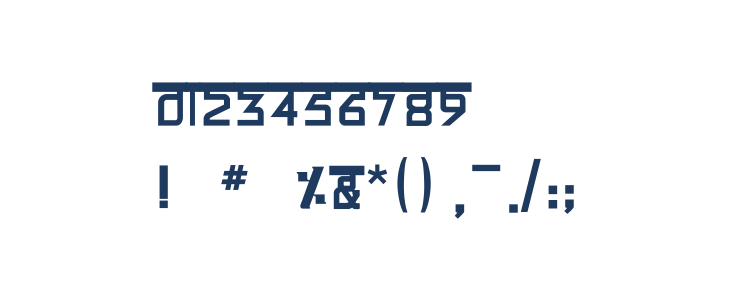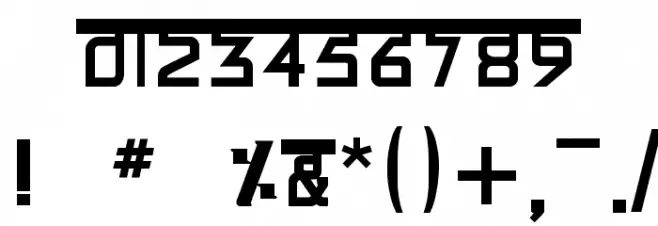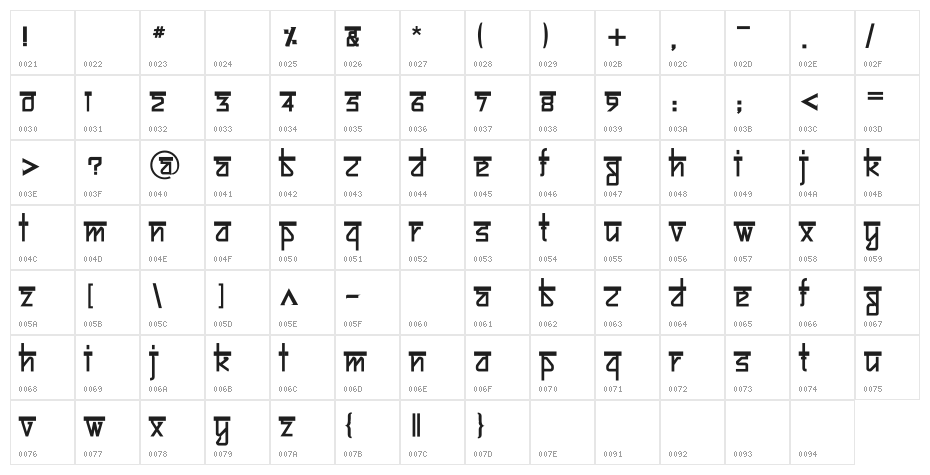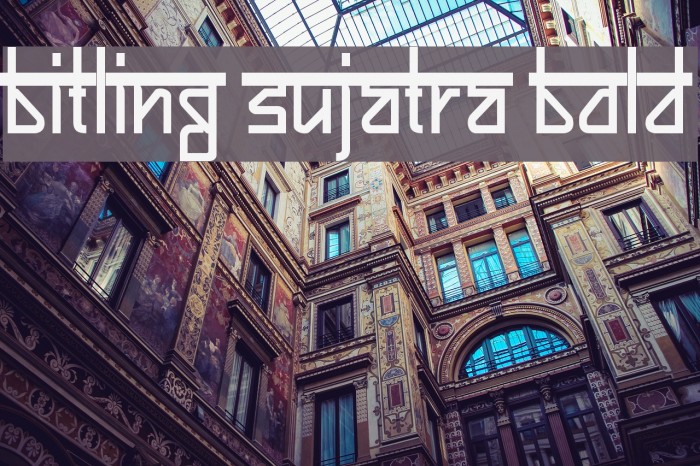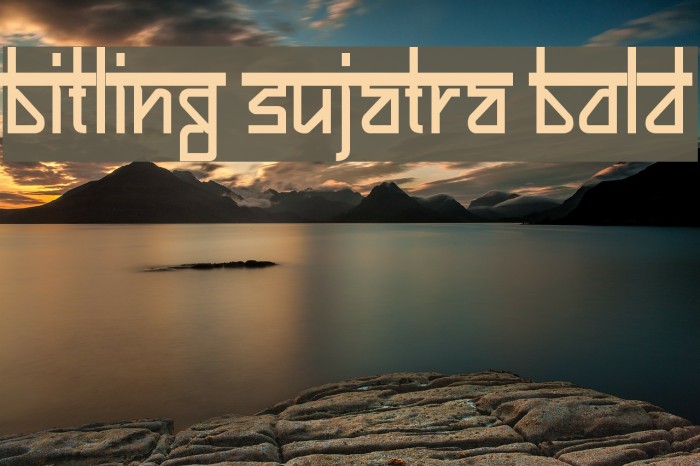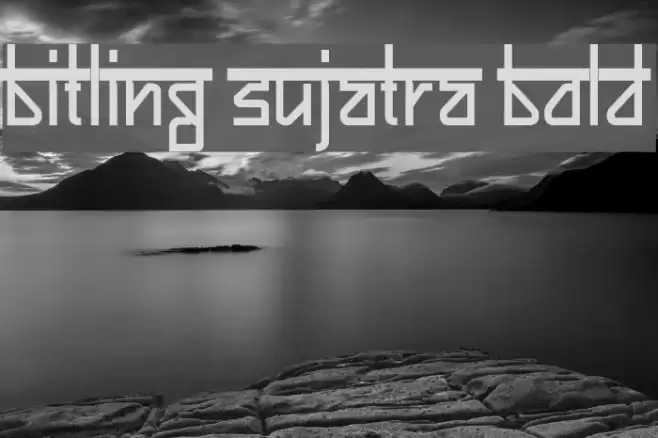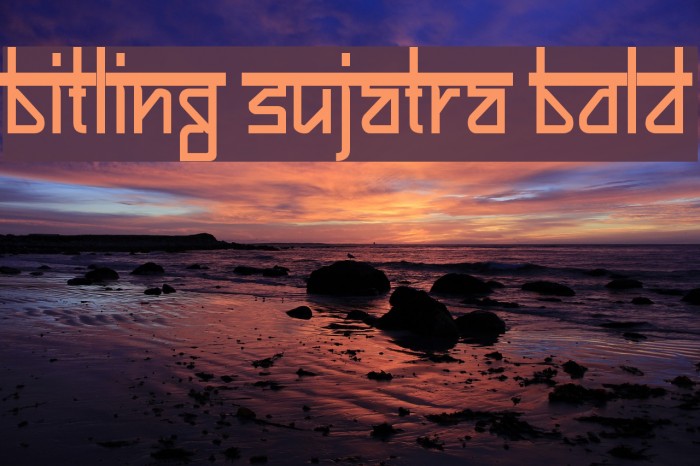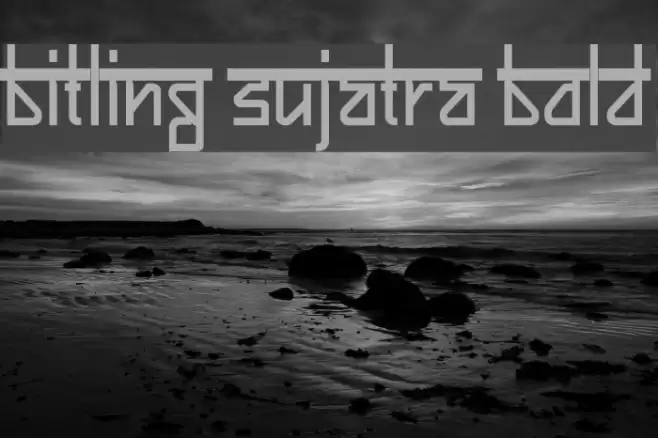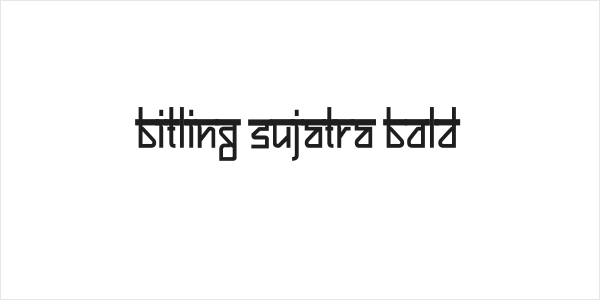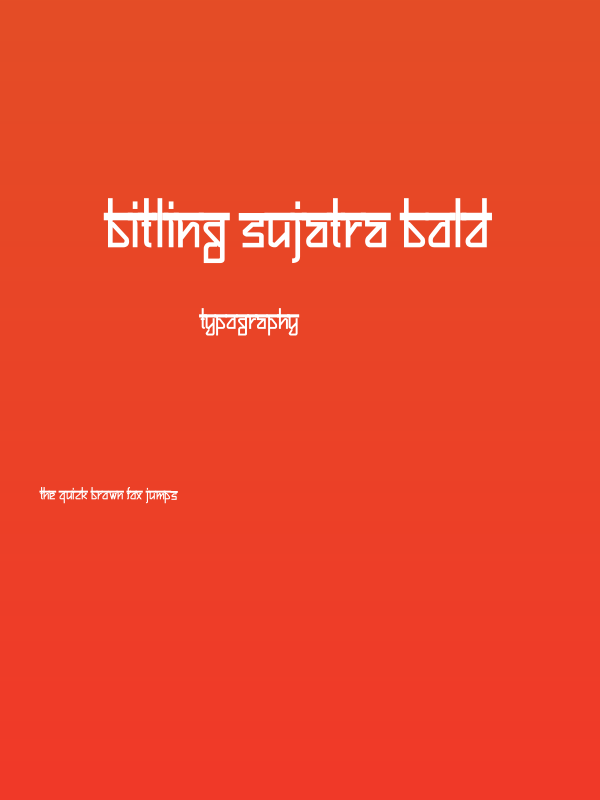
Bitling sujatra Bold Font
Bitling sujatra Bold Description
This font features a bold, geometric style with a distinct modern flair. The characters are constructed with clean, straight lines and sharp angles, giving it a futuristic and technical appearance. The uppercase and lowercase letters maintain a consistent height, contributing to a uniform look. The numerals are similarly styled, ensuring cohesion across all characters. Special characters are designed to match the overall aesthetic, with unique interpretations that stand out. This font's boldness and geometric precision make it ideal for projects that require a strong visual impact.
| Proposed Projects | Ideal for technology branding, futuristic designs, and impactful headlines. |